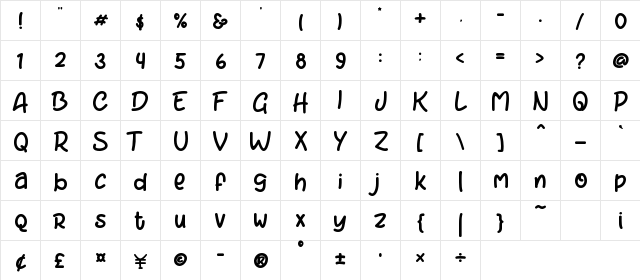
arthury Regular
| Designer | HandletterYean |
Design Context for arthury Typeface
arthury takes a measured approach to typography — its balanced proportions and neutral character make it a reliable workhorse for both digital and print work.